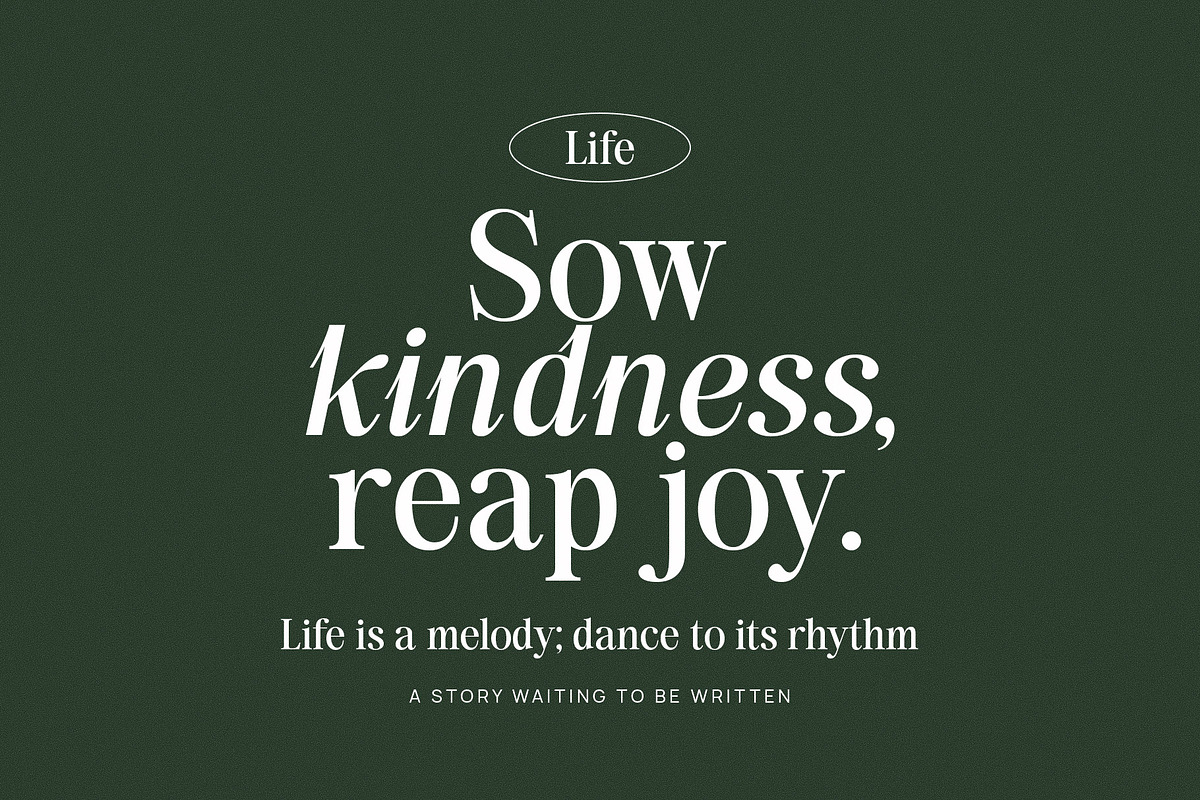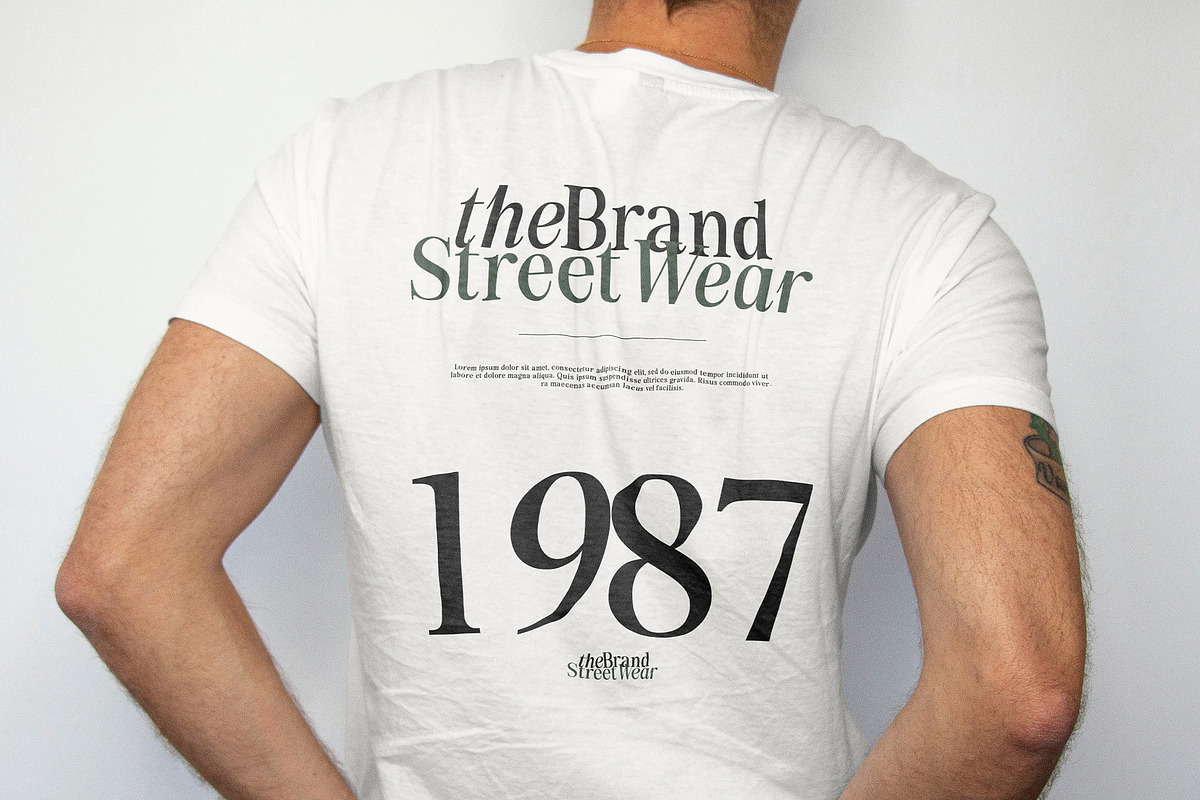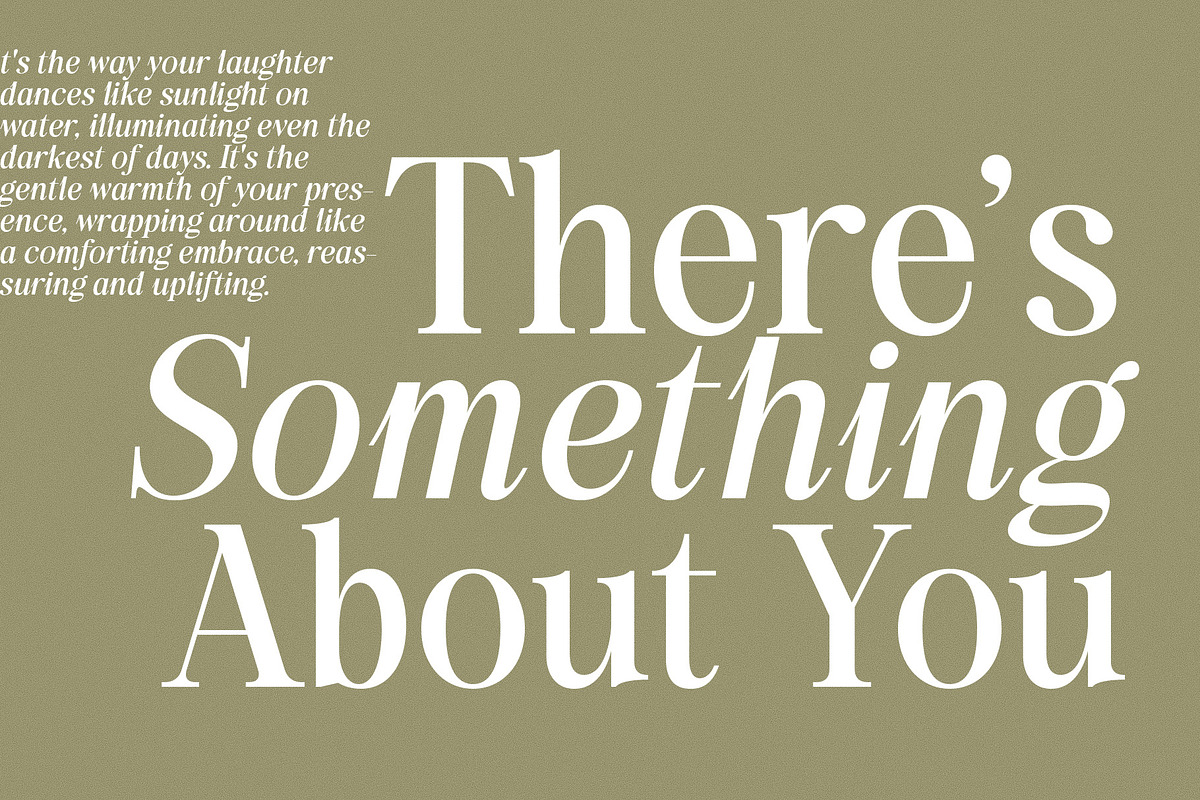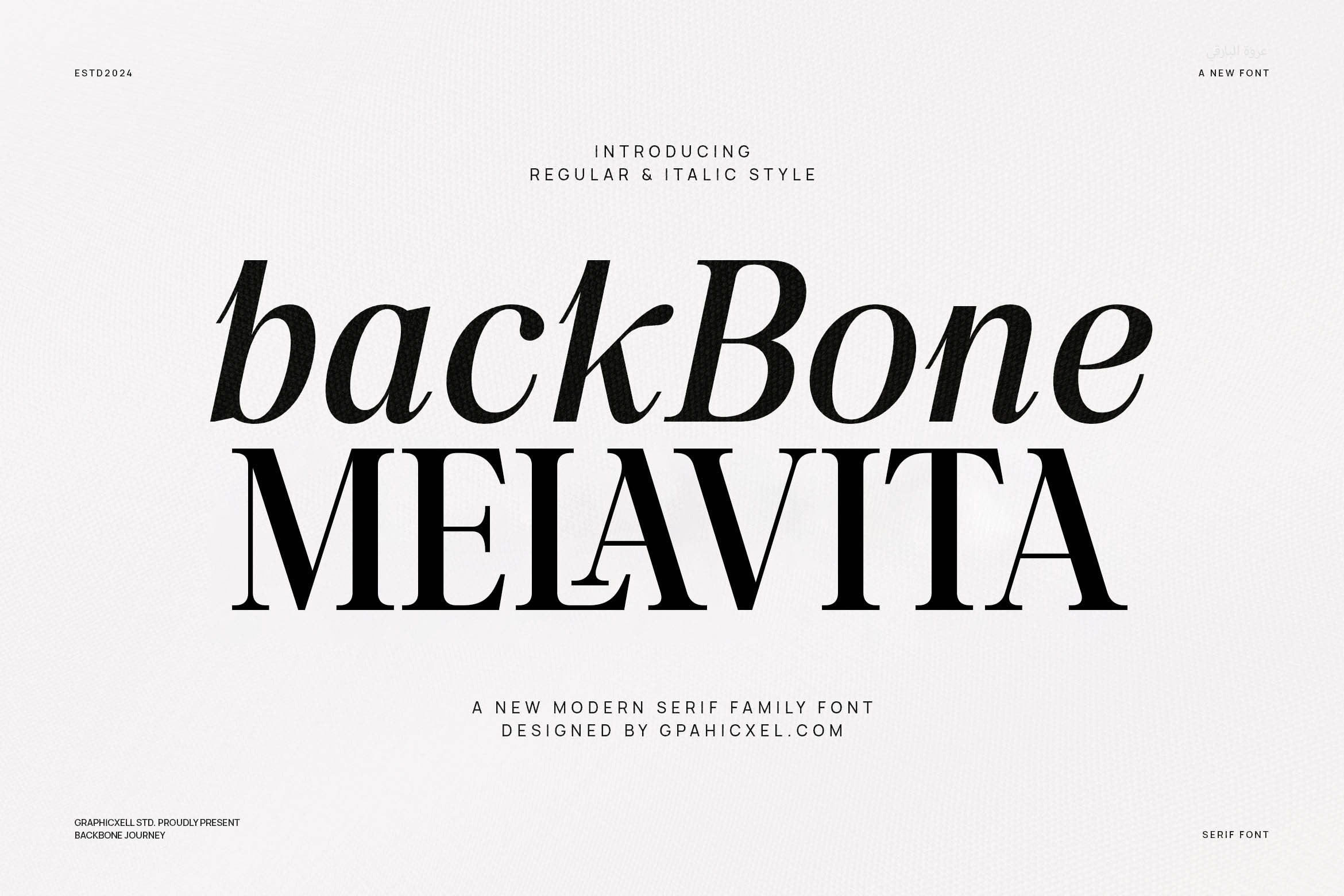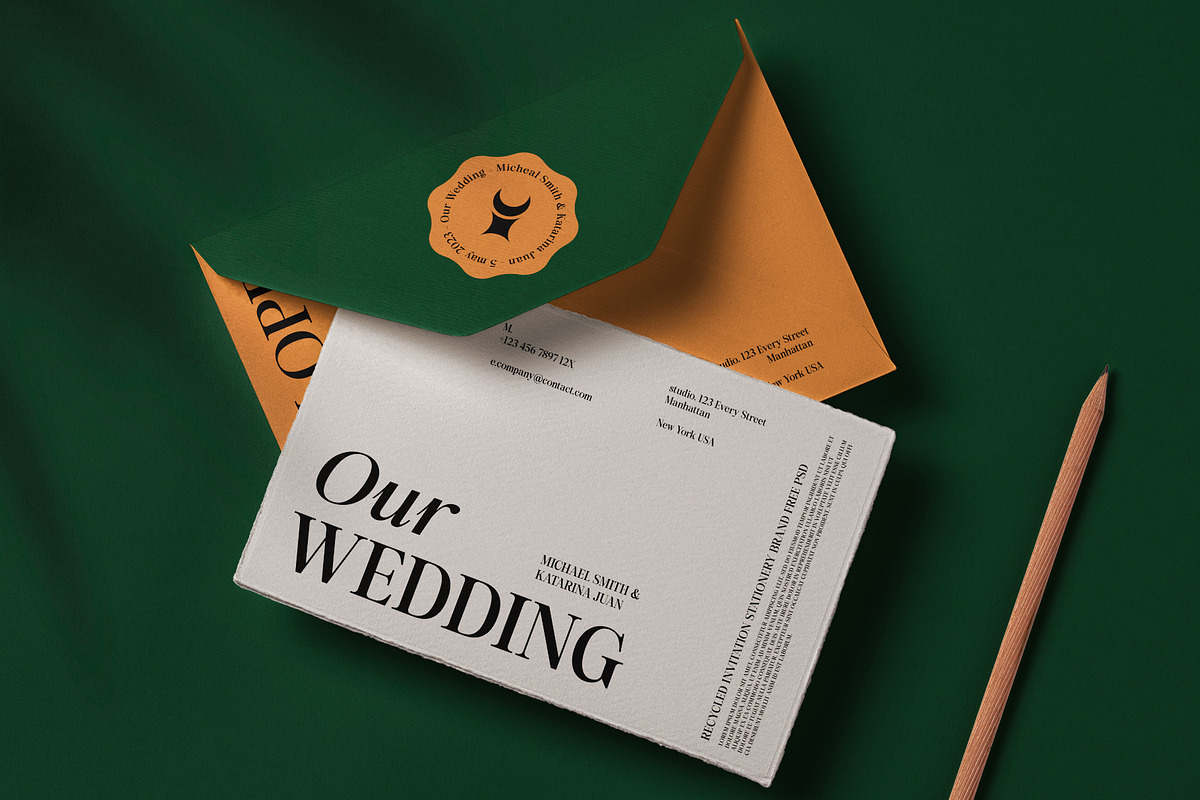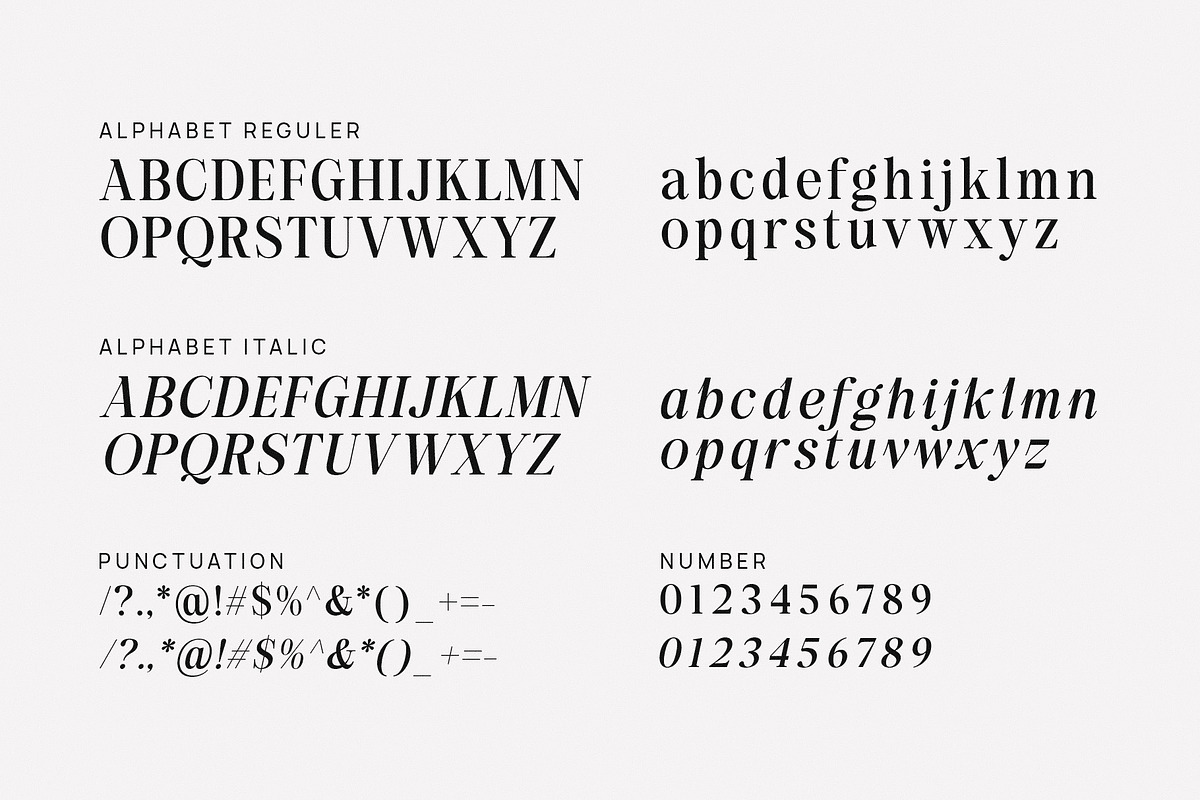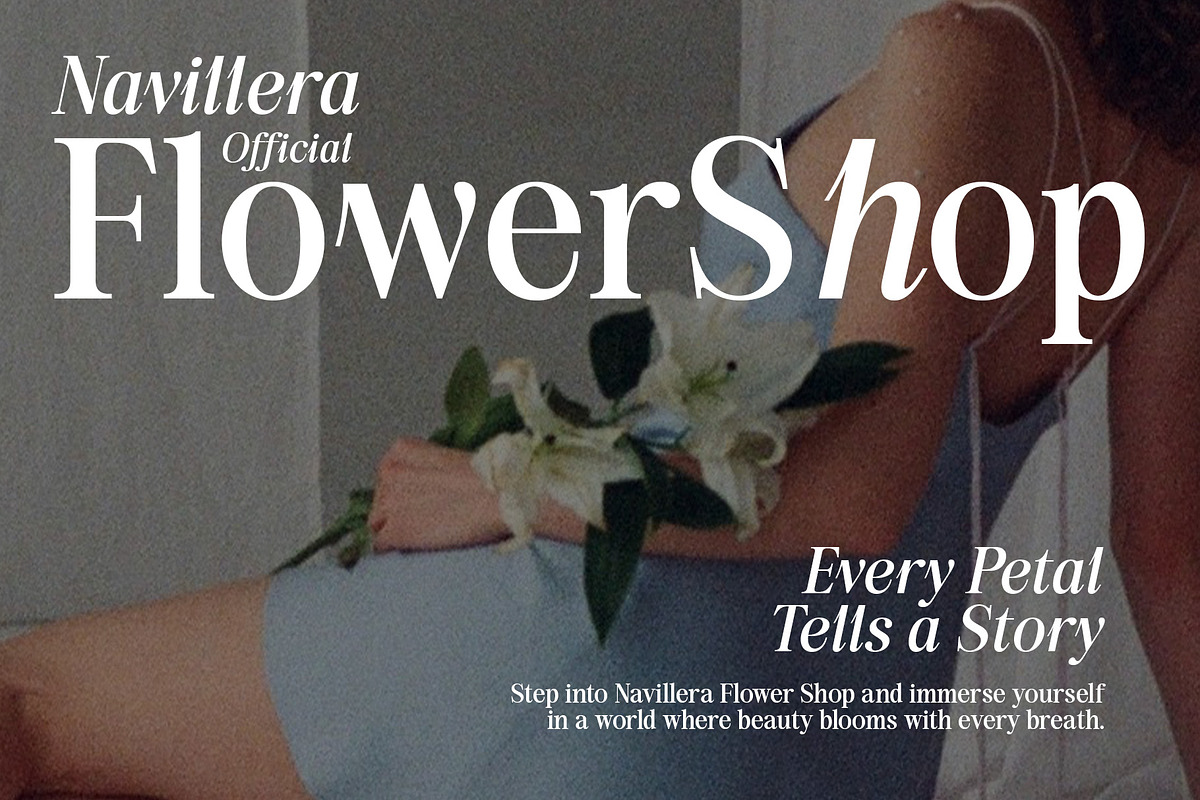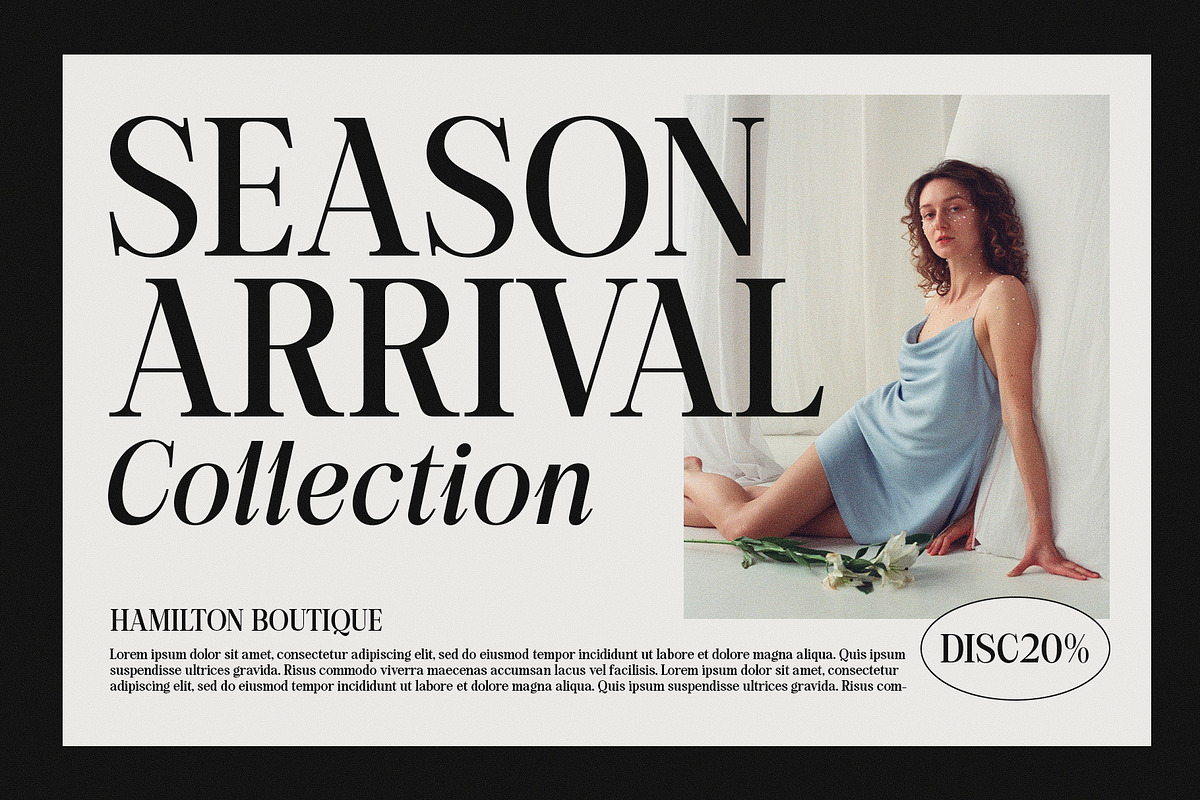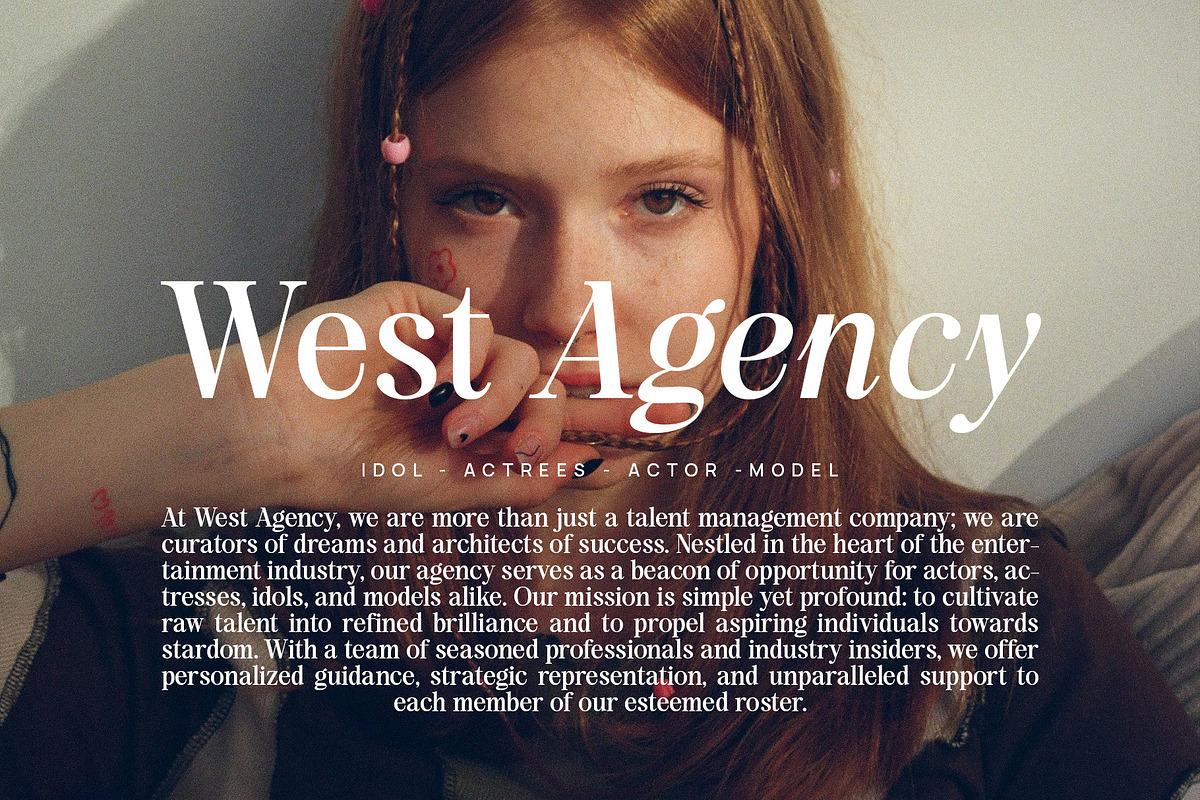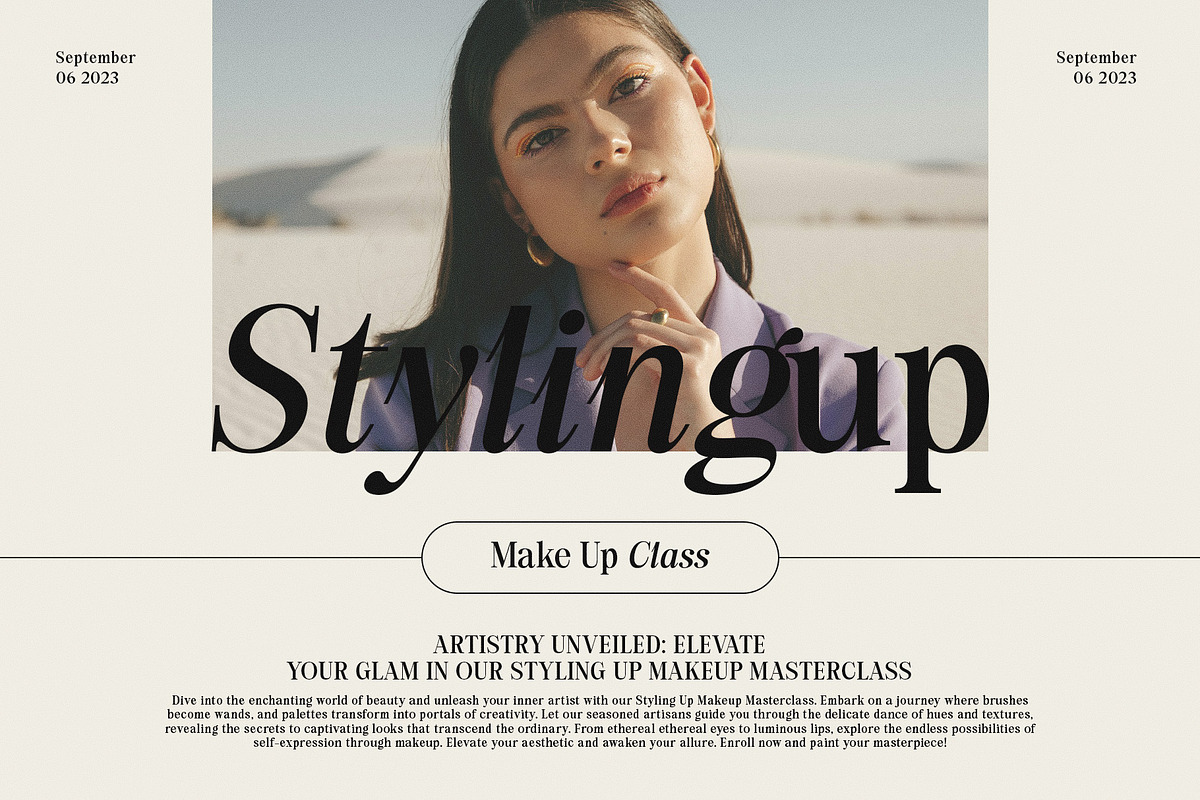
Back Bone Melavita Serif Family font
Back Bone Melavita is a serif font family with a modern style. Like other serif fonts, Back Bone Melavita has a high readability level. The font still looks very sharp, although its size is small. Therefore, Back Bone Melavita, you can read long paragraph text like an article that uses this font type. Back Bone Melavita is not only a delicate font that ensures we read well and clearly but also brings us a classy and new modern appearance. You can feel an elegant and beautiful stroke starting from the italic style. The regular font, like the italic feature, is so good and looks artistic with its various thicknesses on every curve of the lines. Last but not least, the Rumelaz Gekinza font is undoubtedly well-used for multiform business. Let's say you can use it for layout design, logo font, magazine, headline, branding any business, and it is also good for quote font.